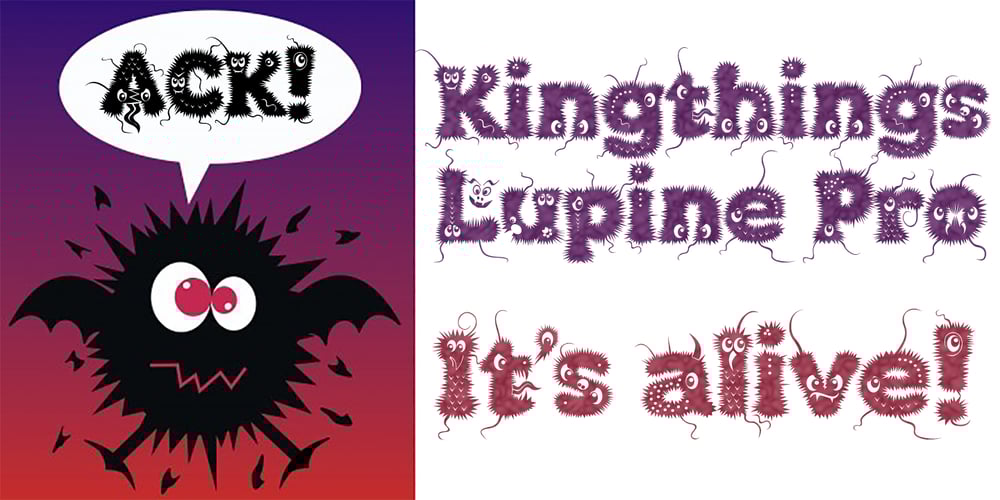
Kingthings Lupine Pro Font Family was designed by Roger S. Nelsson, Kevin King and published by CheapProFonts. Kingthings Lupine Pro contains 2 styles and family package options. I loved this monster font the second I saw it – it reminded me of Franquins Idées Noires… Reworking it and adding the missing glyphs and diacritics was quite time-consuming – but a lot of fun! Lots of details. The Lupineless variant is Lupine with eyes, decorations and stray hairs removed – which leaves just a very usable fuzzy font for your monster-related headline. Kevin King says: “I love fantasy writing and my favorite author is Terry Pratchett. In Reaper man, my favorite book, there is a werewolf character called Lupine, I wanted to make a font for him and for Ludmilla… It’s a long story, it’s a hairy font.” All fonts from CheapProFonts have very extensive language support: They contain some unusual diacritic letters (some of which are contained in the Latin Extended-B Unicode block) supporting: Cornish, Filipino (Tagalog), Guarani, Luxembourgian, Malagasy, Romanian, Ulithian and Welsh. They also contain all glyphs in the Latin Extended-A Unicode block (which among others cover the Central European and Baltic areas) supporting: Afrikaans, Belarusian (Lacinka), Bosnian, Catalan, Chichewa, Croatian, Czech, Dutch, Esperanto, Greenlandic, Hungarian, Kashubian, Kurdish (Kurmanji), Latvian, Lithuanian, Maltese, Maori, Polish, Saami (Inari), Saami (North), Serbian (latin), Slovak(ian), Slovene, Sorbian (Lower), Sorbian (Upper), Turkish and Turkmen. And they of course contain all the usual “western” glyphs supporting: Albanian, Basque, Breton, Chamorro, Danish, Estonian, Faroese, Finnish, French, Frisian, Galican, German, Icelandic, Indonesian, Irish (Gaelic), Italian, Northern Sotho, Norwegian, Occitan, Portuguese, Rhaeto-Romance, Sami (Lule), Sami (South), Scots (Gaelic), Spanish, Swedish, Tswana, Walloon and Yapese.